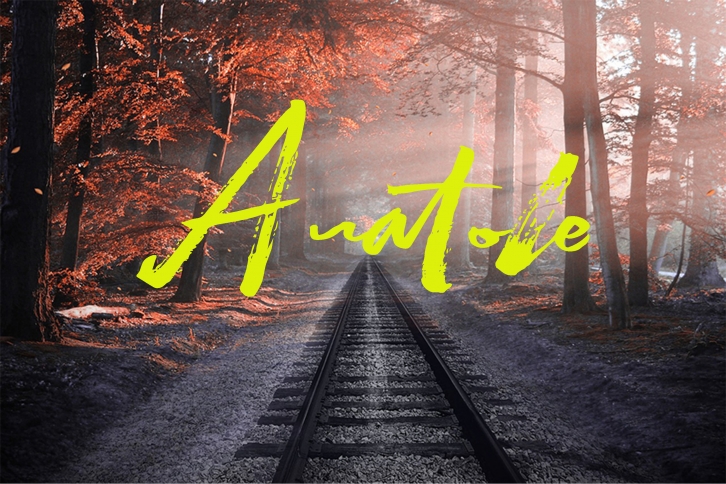
Antole is an urban styled and brushed handwritten font. It is the best choice for creating eye catching logos, branding and quotes. Every letter has a unique and beautiful touch, which will make your design come alive!